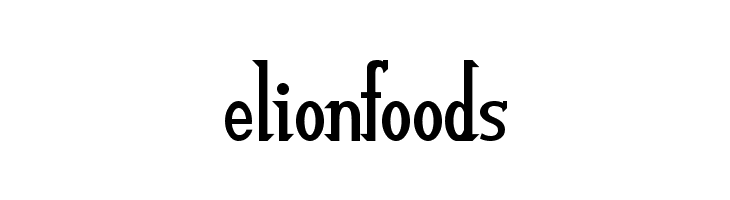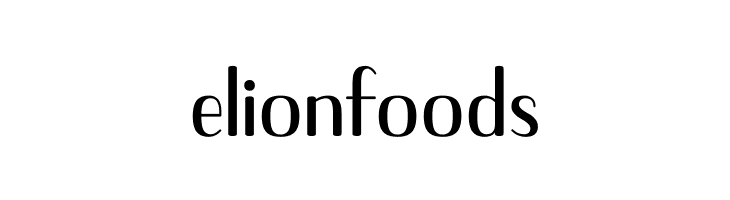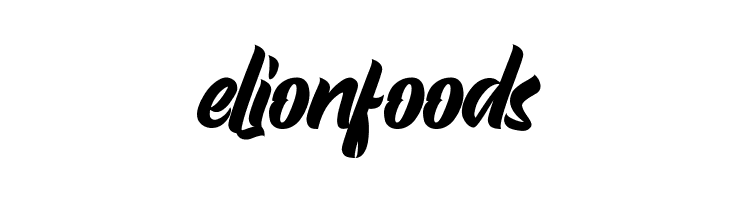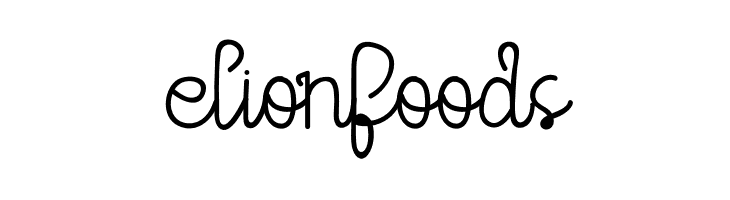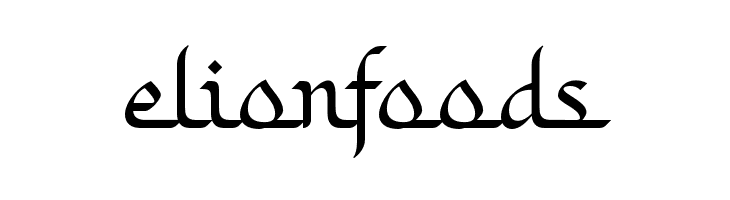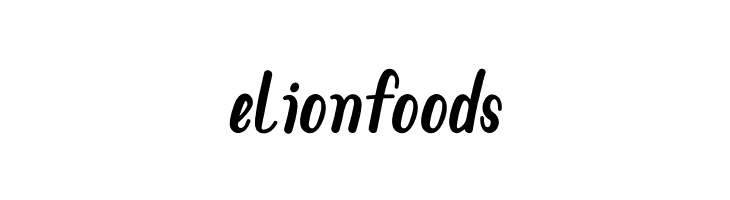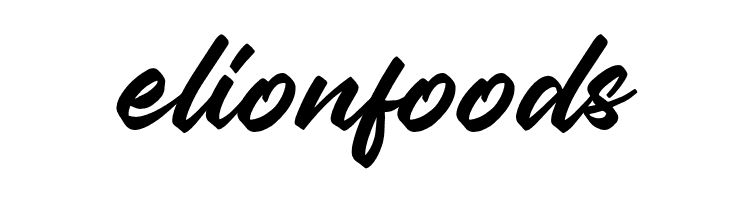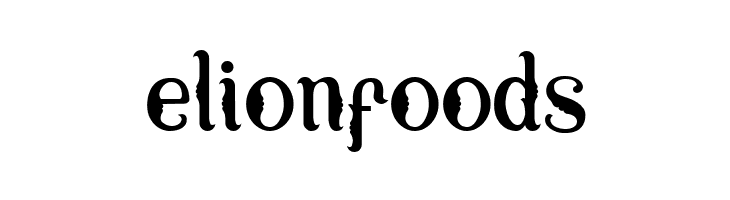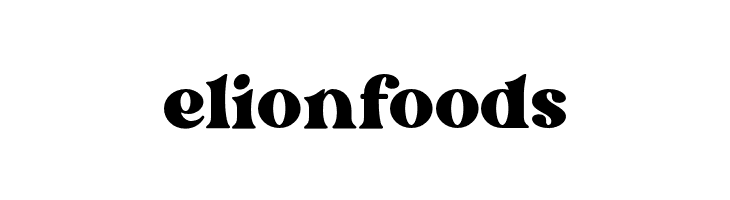
A bold, high-contrast serif font with vintage elegance and modern flair.
A modern font with clean lines and a touch of vintage elegance.
A bold, dynamic script font with flowing, cursive letterforms and high contrast.
A bold, expressive script font with high contrast and flowing cursive design.
A bold, flowing script font with interconnected characters and a playful elegance.
A whimsical script font with curly, looping letterforms and decorative flourishes.
A whimsical, hand-drawn script font with decorative swirls and playful elegance.
A playful and elegant script font with flowing, cursive letterforms.
A modern-vintage font with elegant curves and sharp edges, ideal for sophisticated designs.
An elegant script font with intricate, flowing lines and decorative flourishes.
A graceful script font with flowing, connected strokes and elegant curves.
A dynamic, italic font with moderate contrast and subtle serifs, offering a modern yet timeless appeal.
A whimsical and romantic script font with bold strokes and heart motifs.
A bold, decorative font with classic and whimsical elements.
A cursive-inspired font with elegant, flowing strokes and calligraphic flair.
An elegant, handwritten cursive font with fluid, elongated strokes.
A bold, flowing script font with high contrast and dynamic elegance.
A classic serif font with bold strokes and high contrast, exuding elegance and tradition.
A fluid, handwritten-style font with a casual elegance.
A lively handwritten font with expressive, fluid strokes and a casual elegance.
A dynamic and expressive script font with fluid, flowing letterforms and high contrast.
A classic serif font with modern elegance and refined letterforms.
A decorative font with elongated, flowing swashes and a calligraphic style.
A graceful script font with fluid, handwritten elegance.
A playful and whimsical script font with interconnected letters and a charming looped design.
A playful, whimsical script font with a handwritten feel.
A playful and dynamic script font with fluid, connected strokes and moderate contrast.
A bold, dynamic script font with flowing cursive letterforms.
An ornate and decorative font with intricate flourishes and vintage elegance.
A dynamic and elegant script font with flowing curves and artistic flair.
A bold, flowing script font with elegant curves and decorative flourishes.